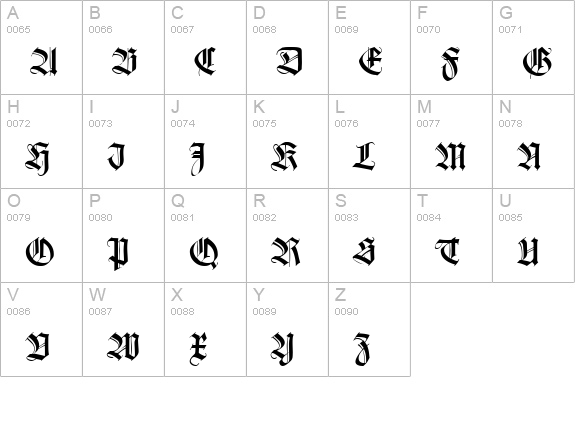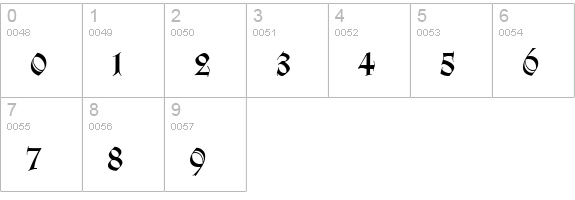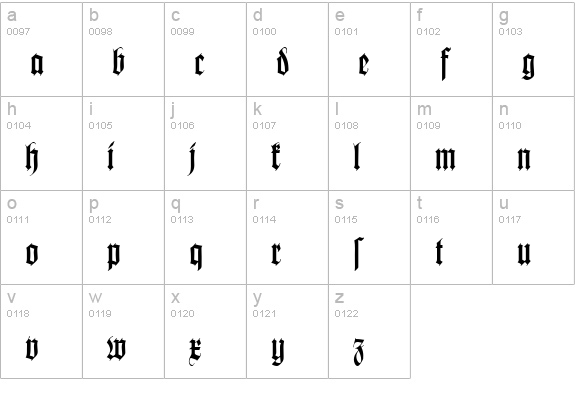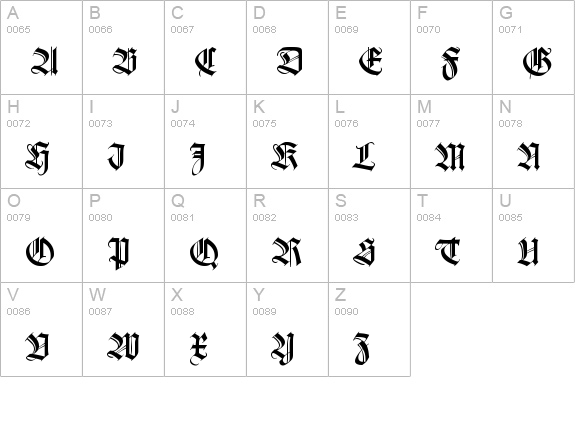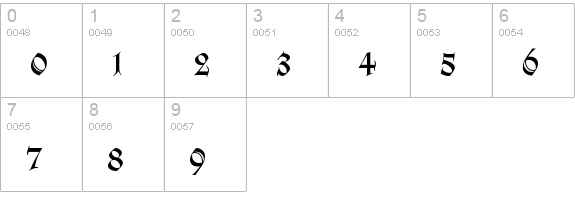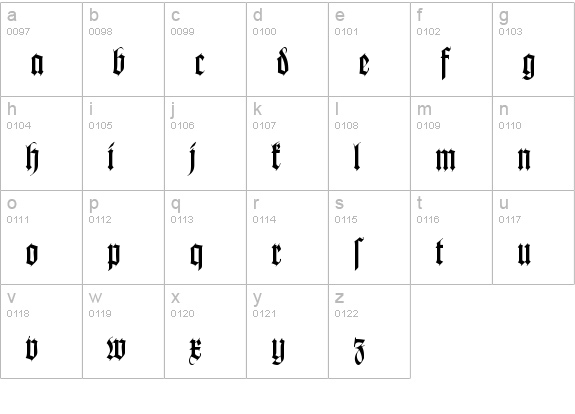
KochFraktur-Regular Font Details
KochFraktur-Regular is the standard, neutral variant in the KochFraktur typeface family \xE2\x80\x94 well suited to general body text, paragraphs, and standard typographic work.